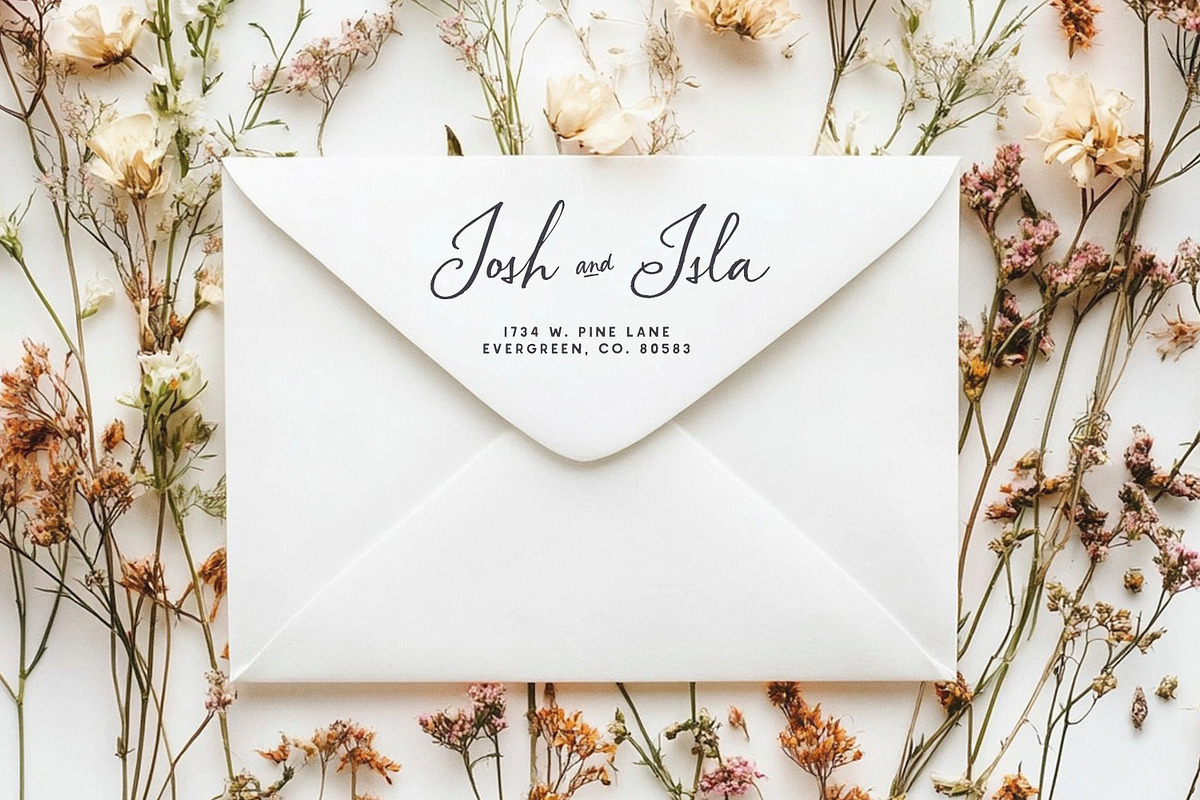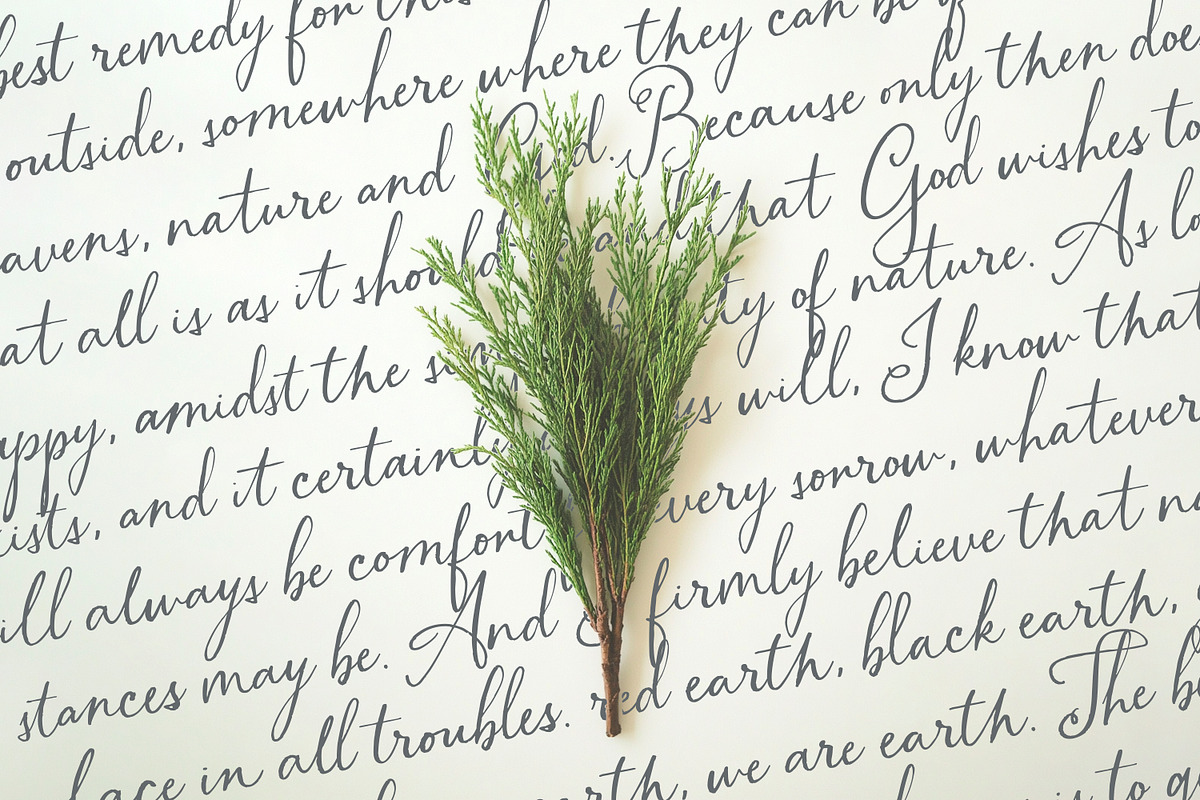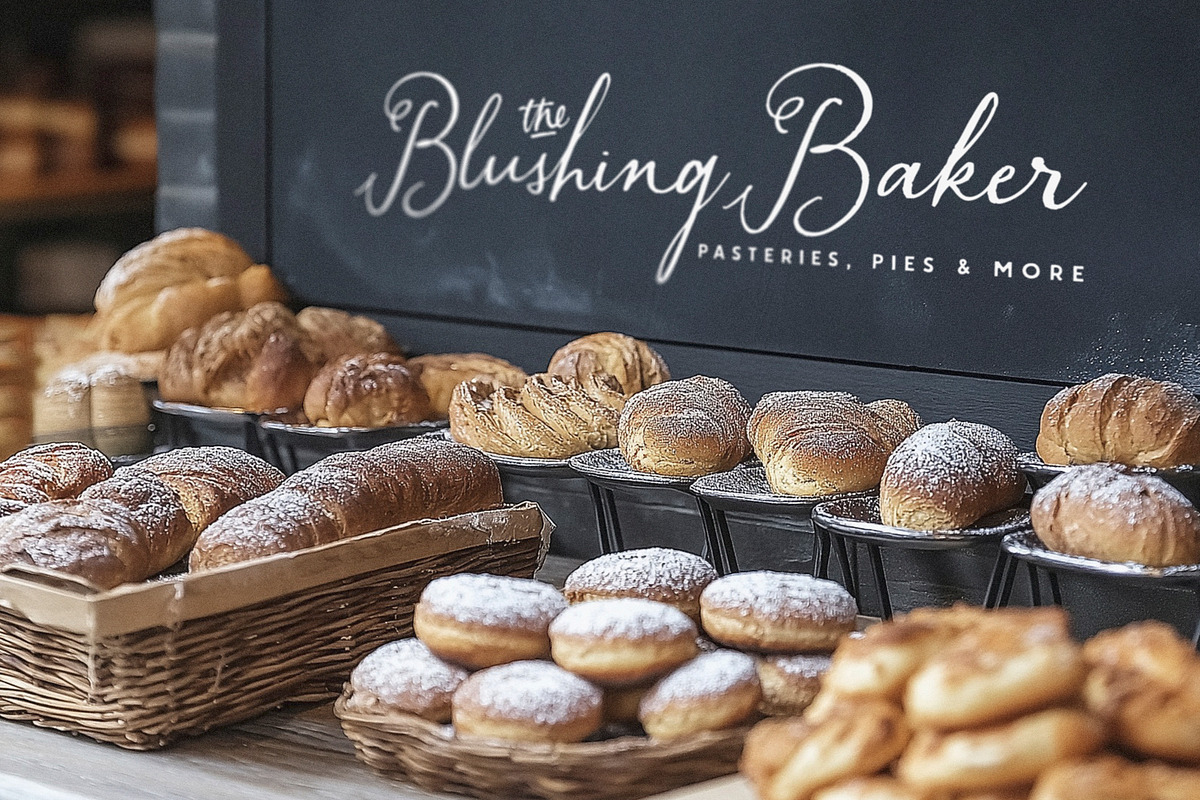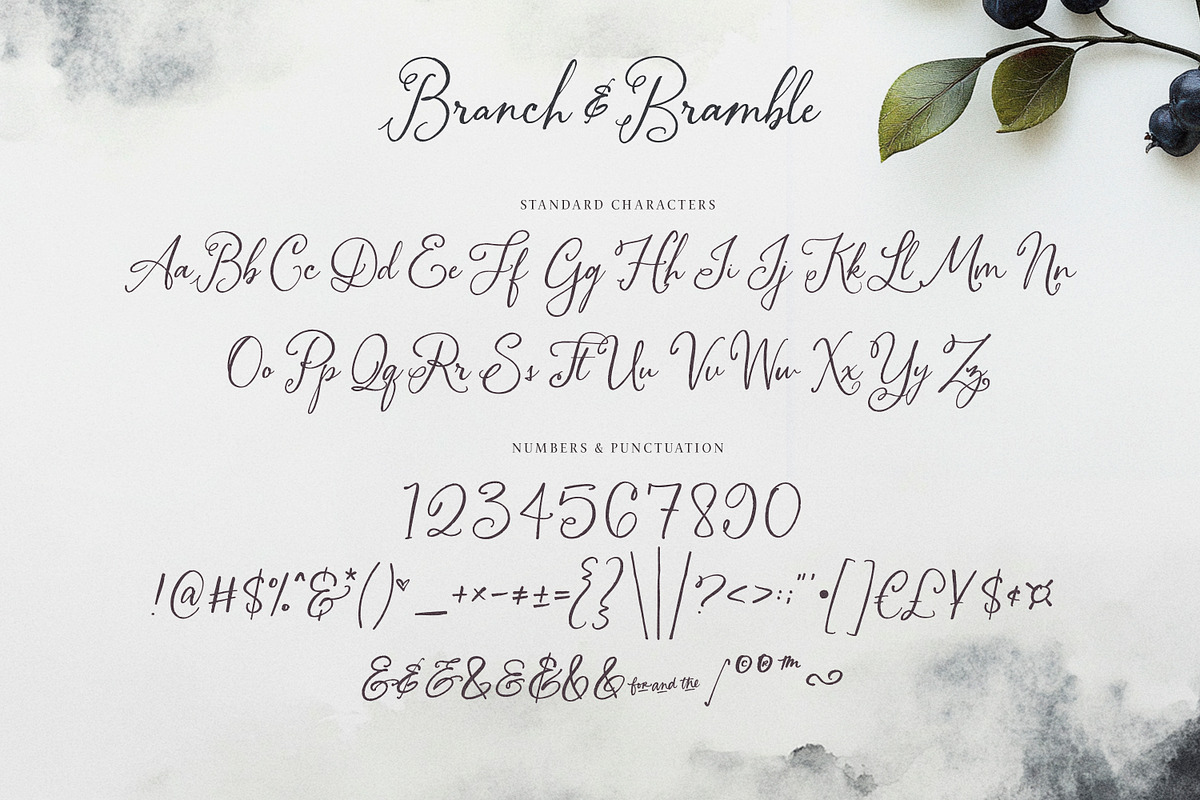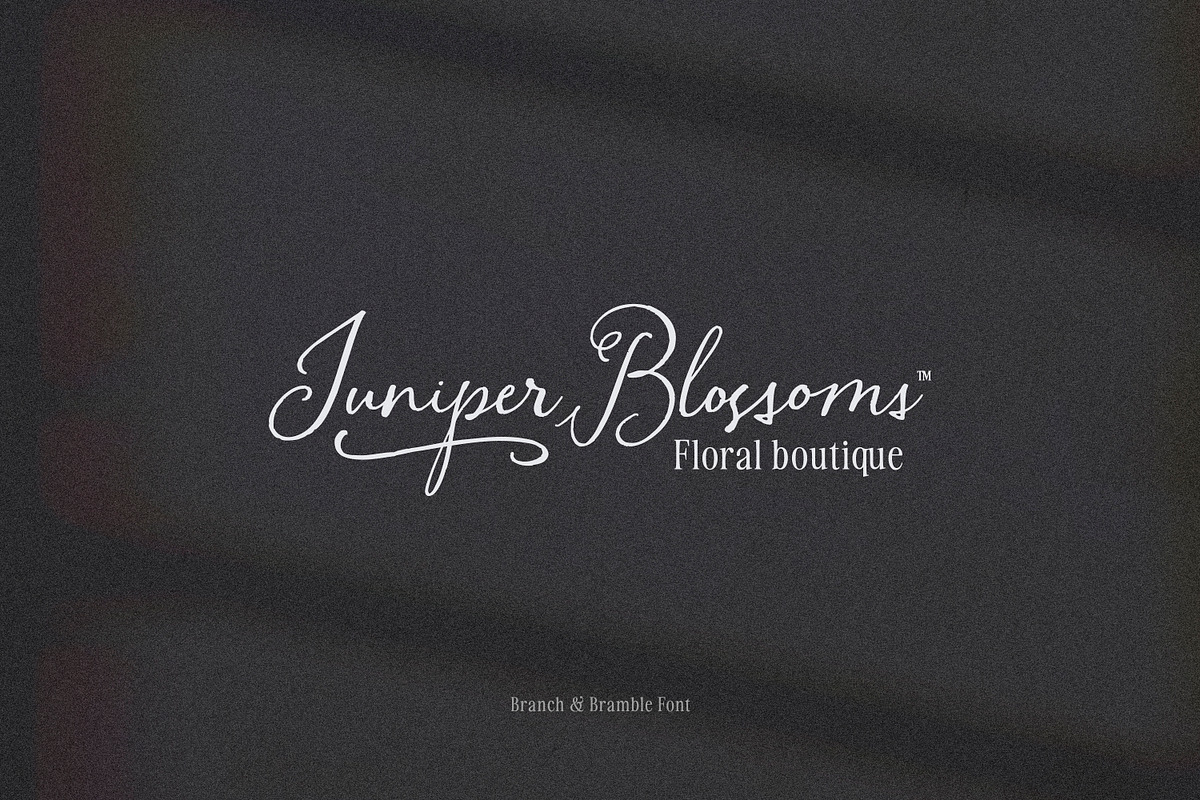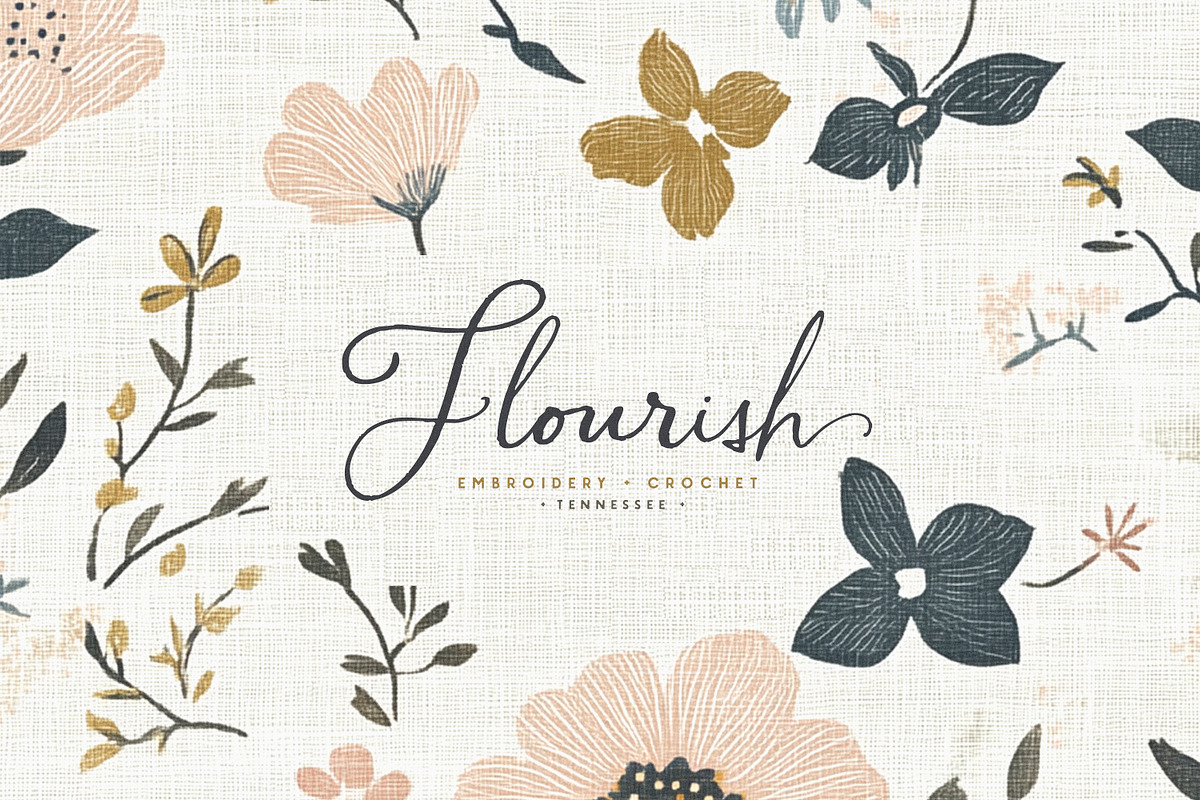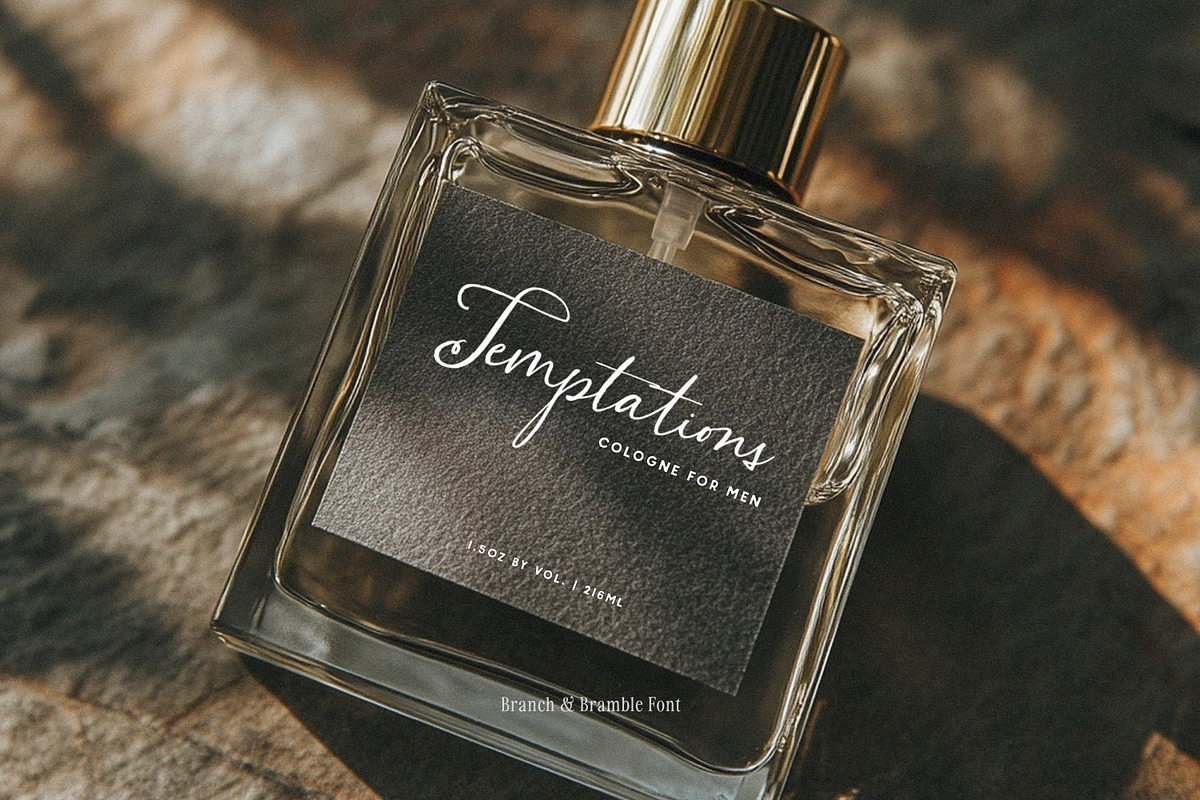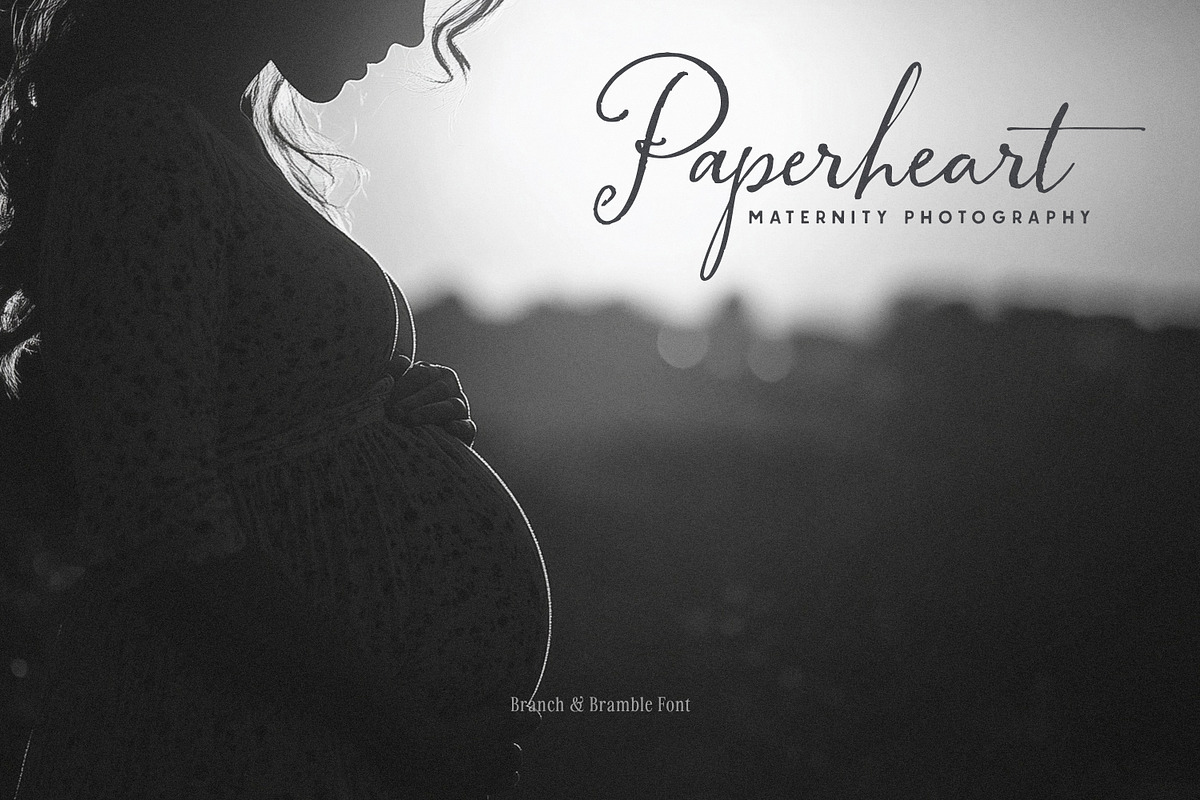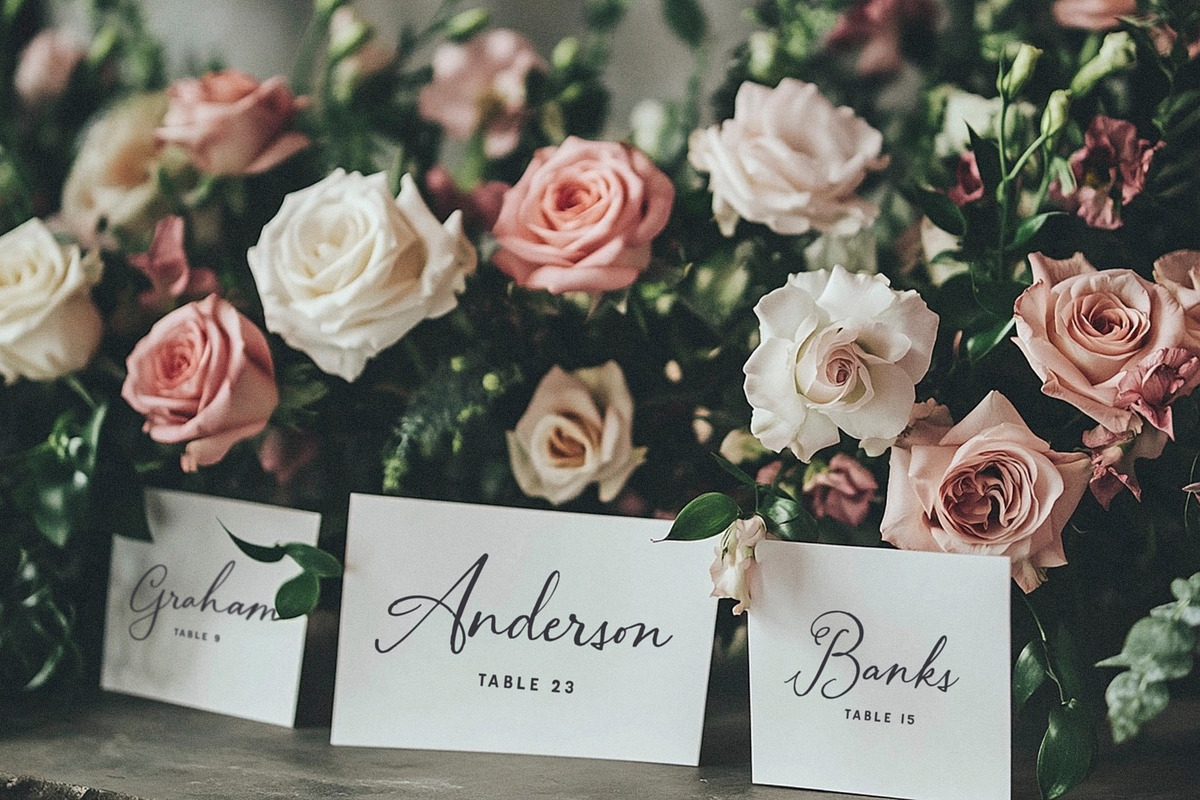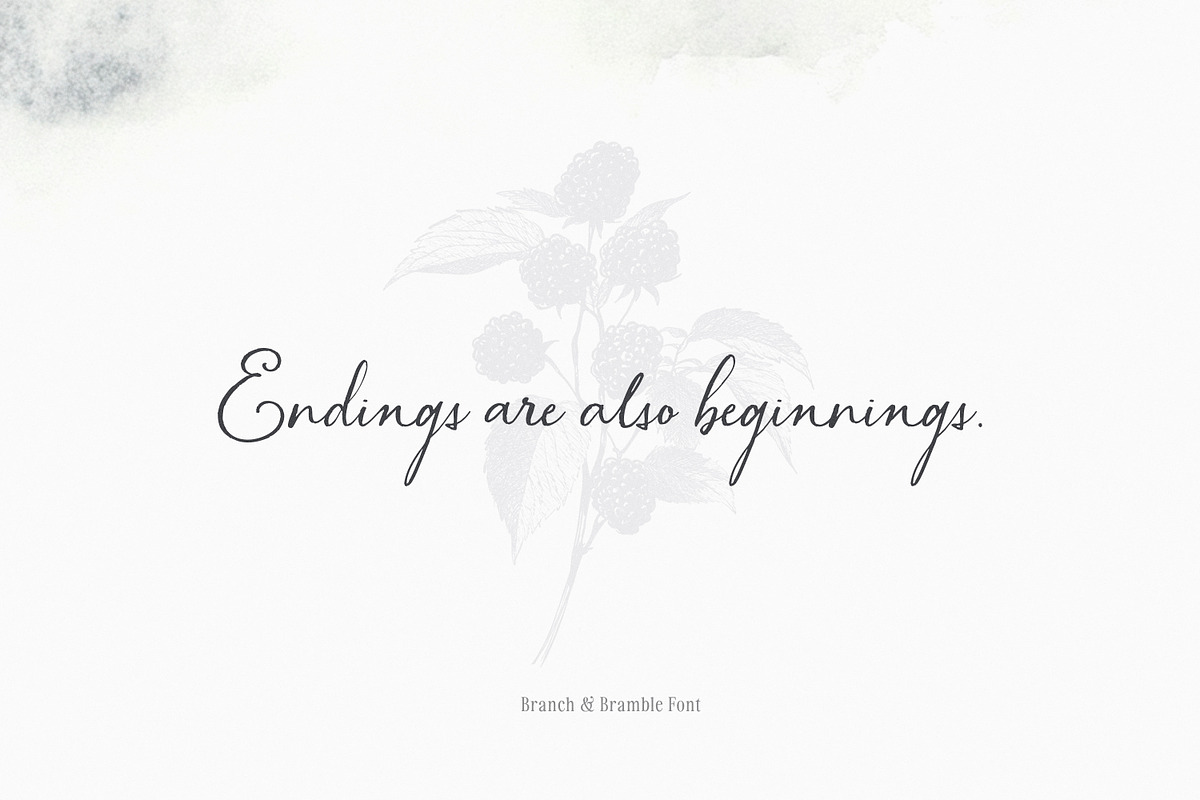
Branch & Bramble Calligraphy Font
Say hello to Branch & Bramble! I’ve been working on this one for a while, and I’m so happy with how it turned out! This hand drawn calligraphy font boats a dancing baseline, delicate ligatures and delicate end characters for a romantic touch. And it’s ready just in time for wedding season! Use on your invitations, Save the Date cards, book covers, branding, taglines, quotes and more! She’s so lovely and I’m excited to see what you do!
- Including 130 Alternates & Ligatures
- Please Note these fonts are handwritten & vectorized, so the edges are purposely irregular. They are best used on print/web, rather than Cricut or Silhouette.